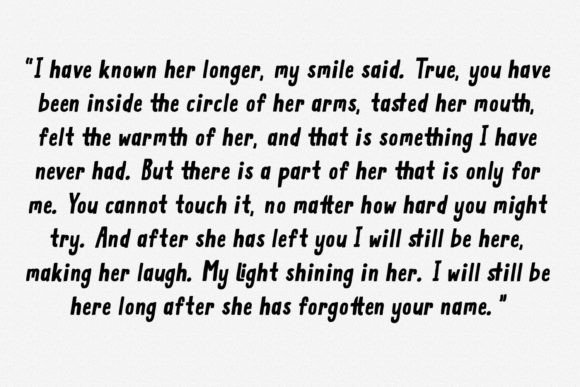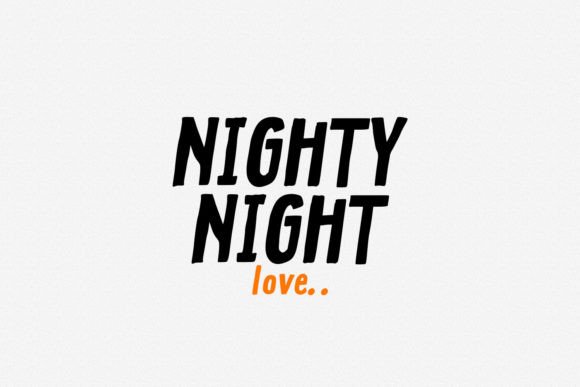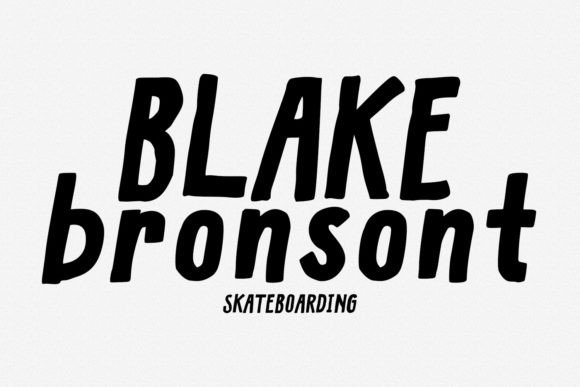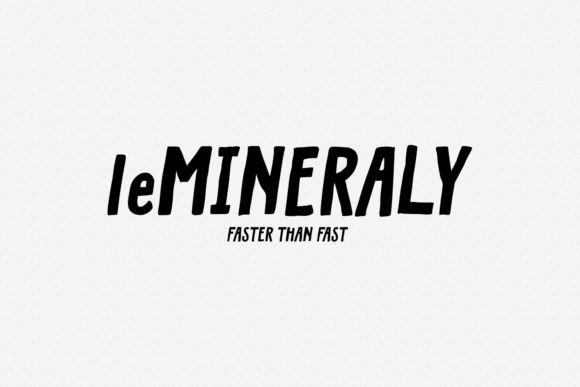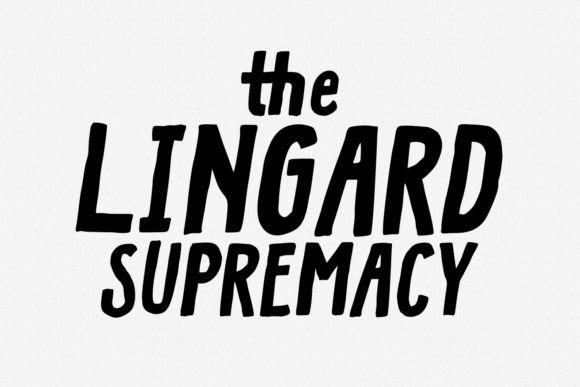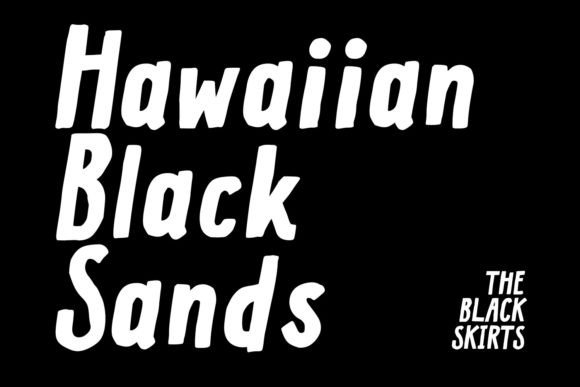
Introduction to Marsted Font
Marsted is a casual handwritten display font featuring the perfect amount of trendiness.
Whether youโre using it for crafting, digital designing, presentations, or greeting card making, itโs perfect .
Key Features of Marsted Font
Why Choose Marsted Font?
Marsted Font offers exceptional quality and versatility, making it a valuable addition to your design toolkit. Whether you’re creating for personal projects or commercial use, Marsted Font delivers professional results.